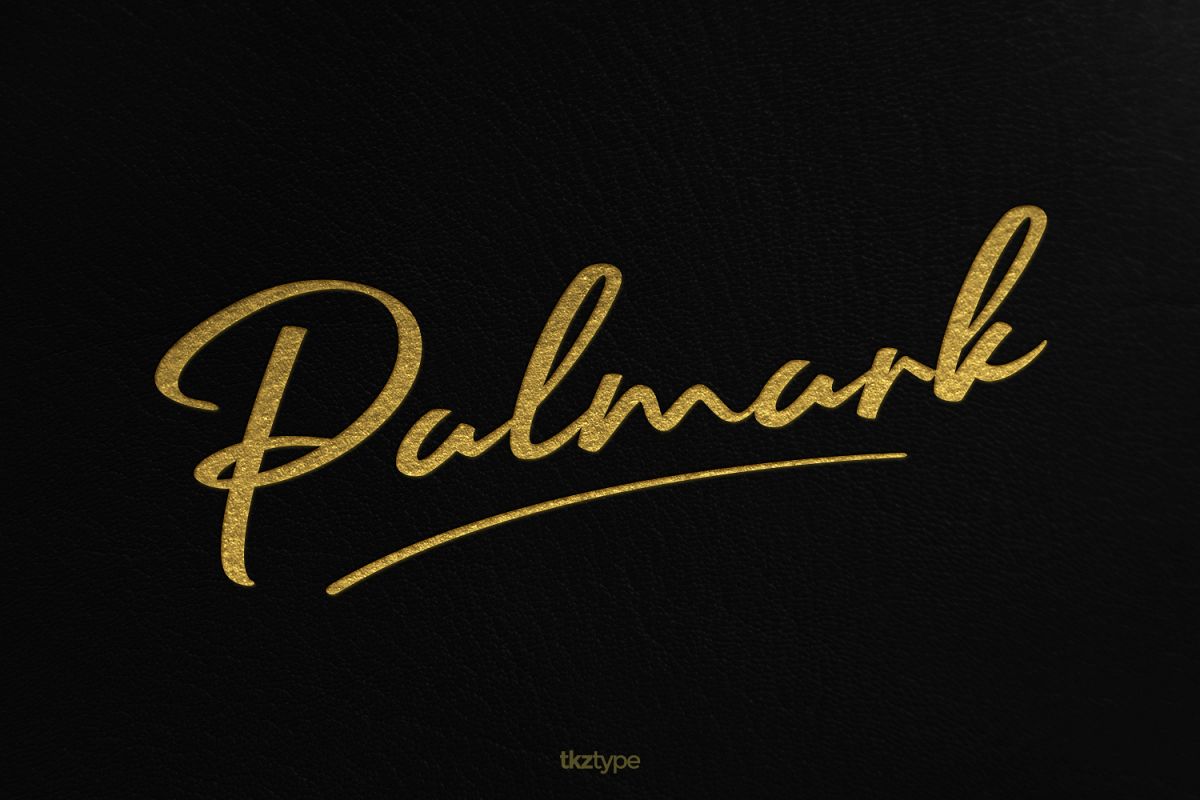
Palmark
Palmark is an elegant script font that works great for a Logo, Display, Book title or any variety design needs!
Featured Ligature to keep it look hand made written.